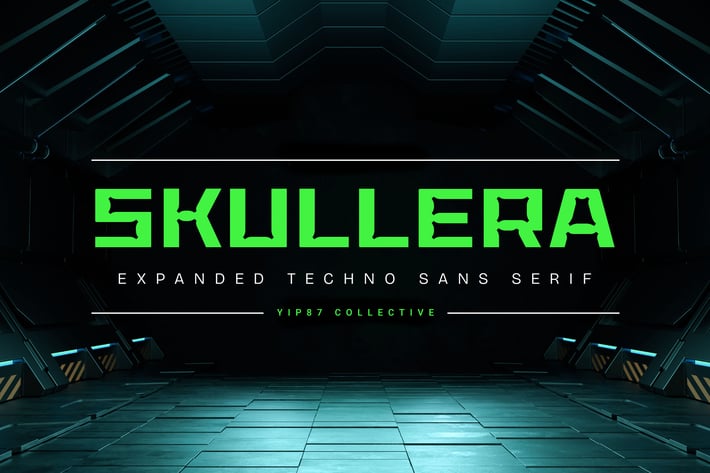
Skullera - Futuristic Scifi Game Display Sans font
Skullera - Futuristic Scifi Expanded Display Sans font - Game Sport Logo Font
Skullera is perfect for your up coming projects such as logo branding, editorial design, esport design, 80s retro design, game / gaming industry, sport racing, super car brand, esport branding, music poster, website design, modern advertising design, poster quote, book/cover title, special events and any more. Skullera Font ensures your designs make a lasting impression. Elevate your branding design projects with Skullera Font today.